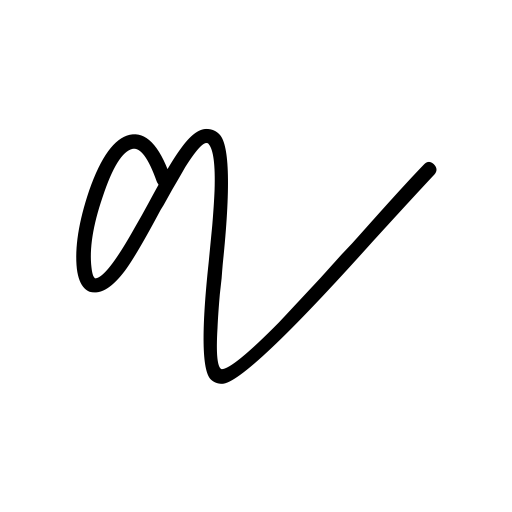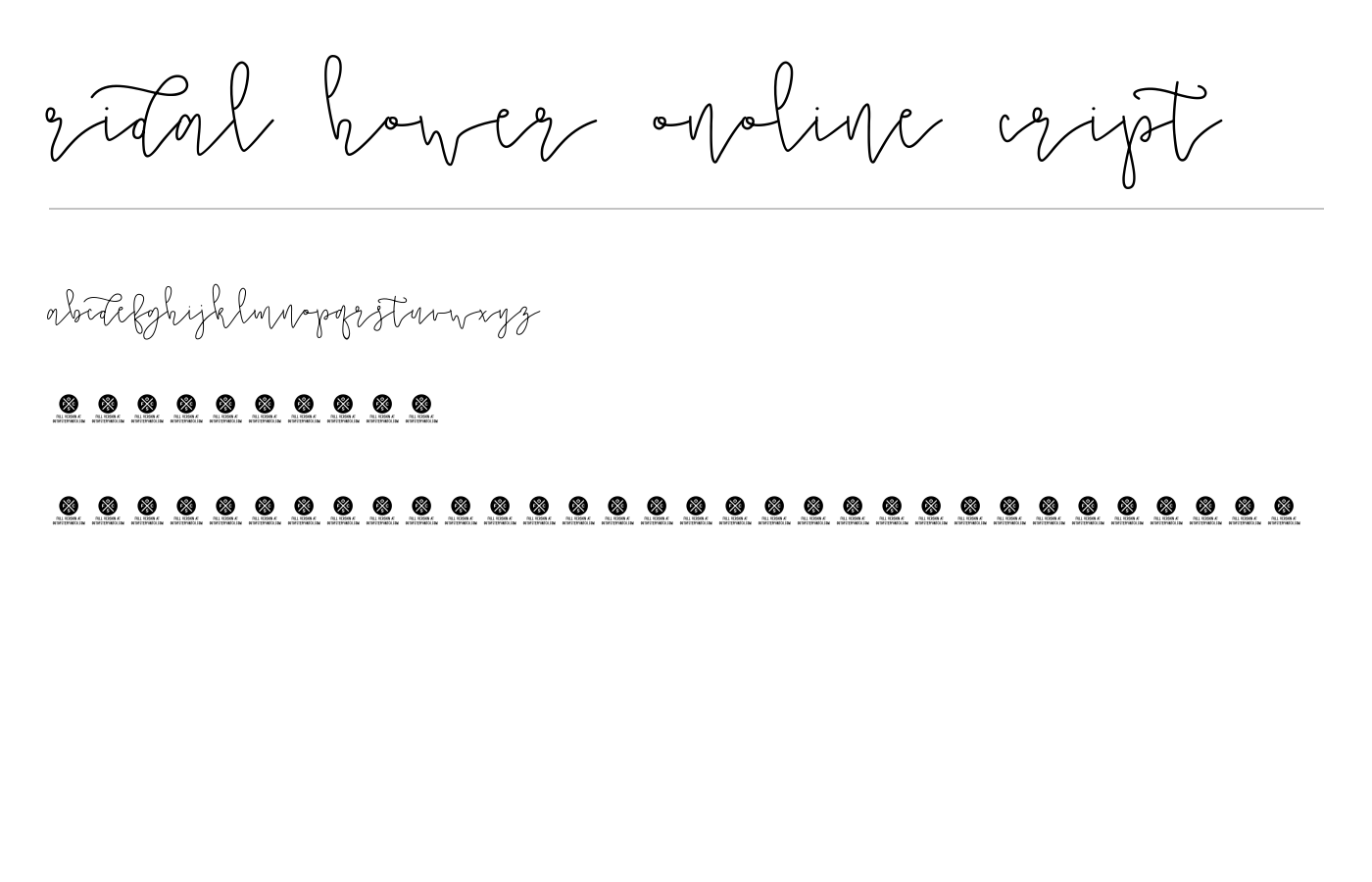
Bridal Shower Monoline Script is an elegant and delicate handwritten font featuring thin, consistent strokes with a graceful, flowing style. Its tall, slender letterforms with charming loops and swashes create a romantic and sophisticated feel, making it perfect for wedding invitations, feminine branding, and elegant event designs. This font works best in decorative, headline, or display uses where its airy and stylish personality can truly shine.
Bridal Shower Monoline Script Font
About Bridal Shower Monoline Script Font
| Font family | Bridal Shower Monoline Script Font |
| Designer | Out of Step Font Company |